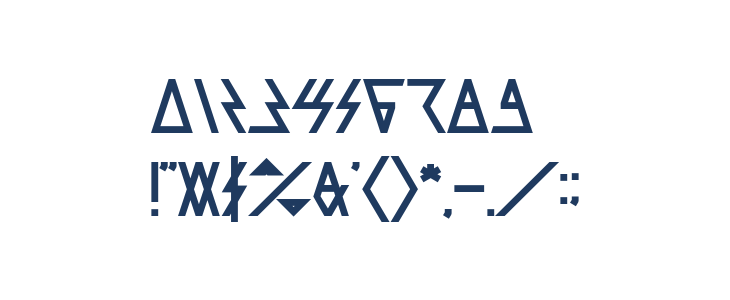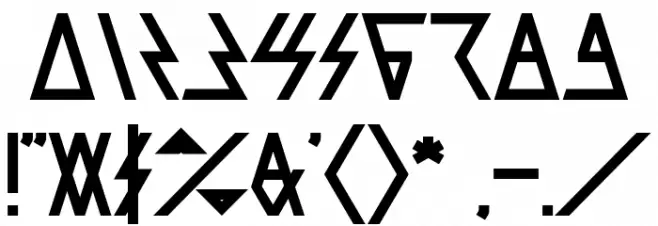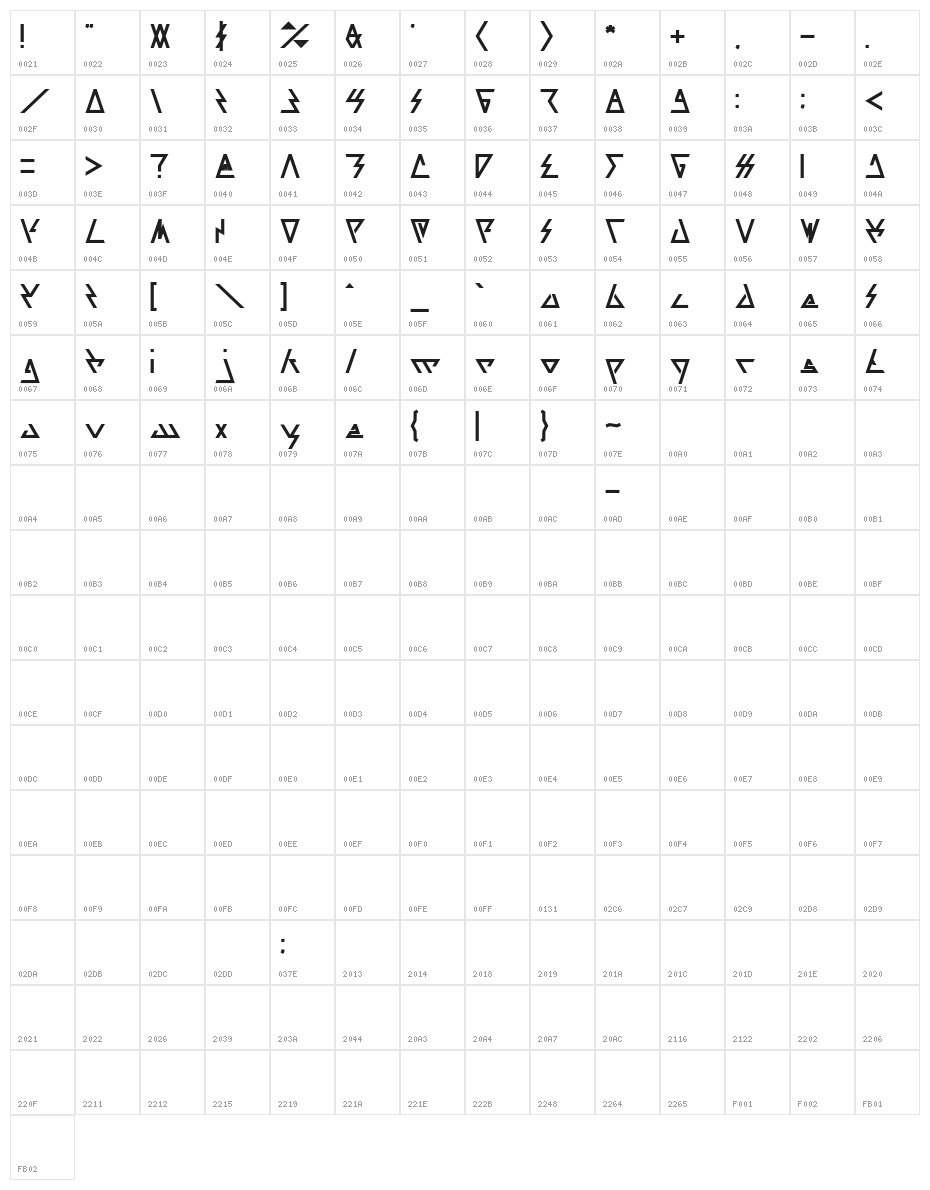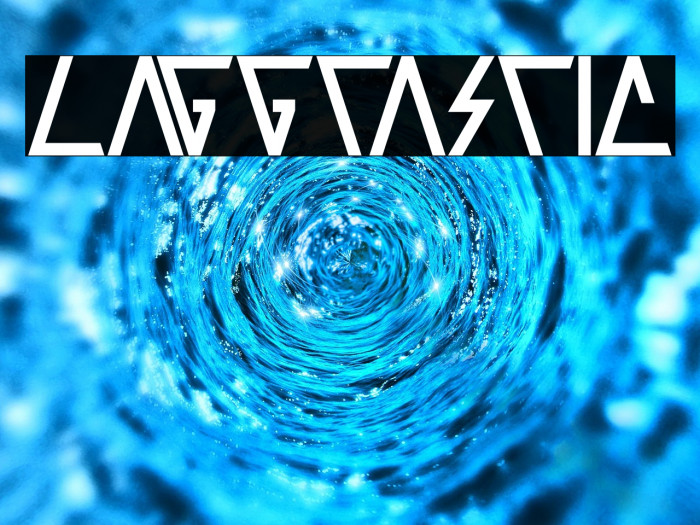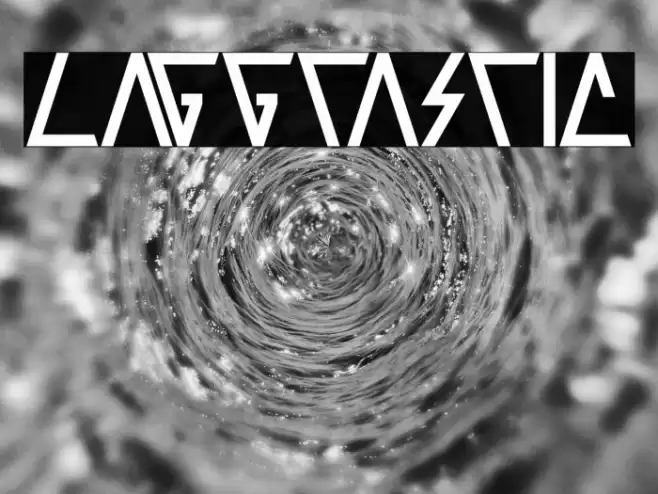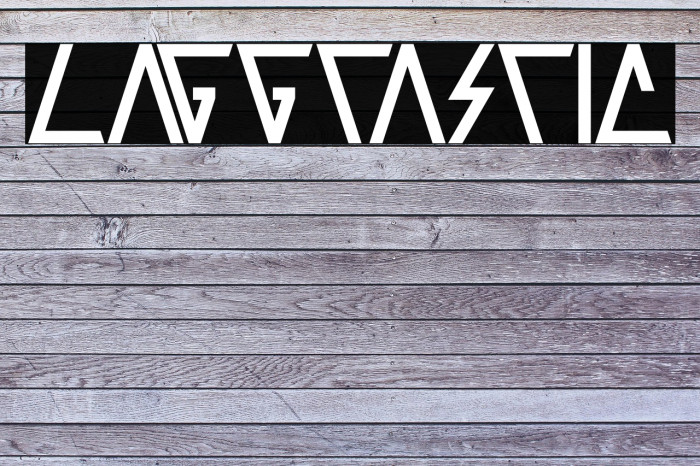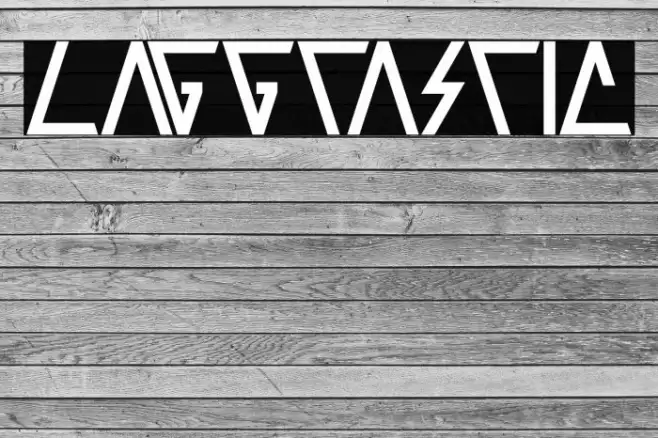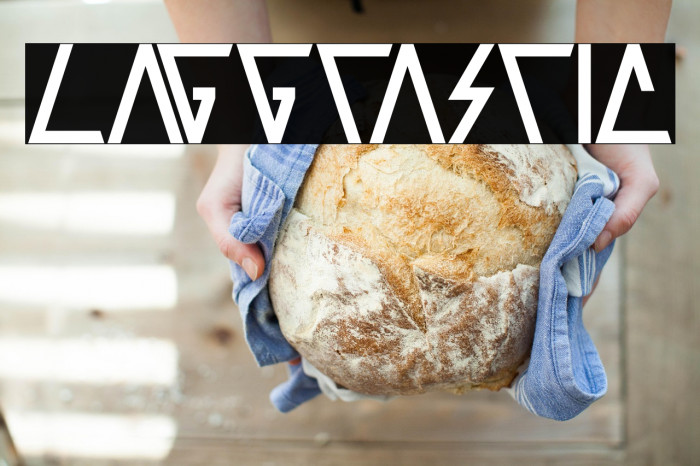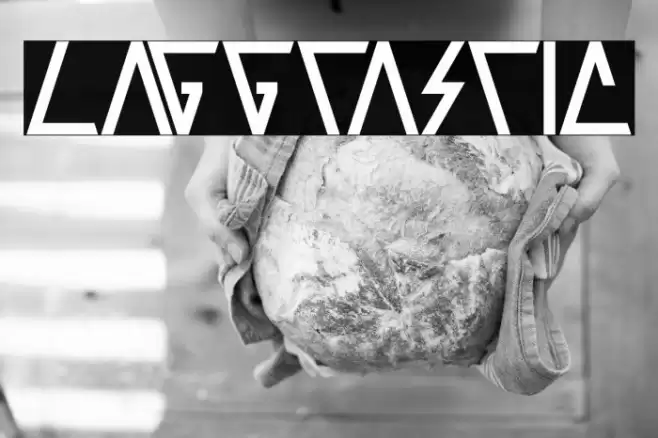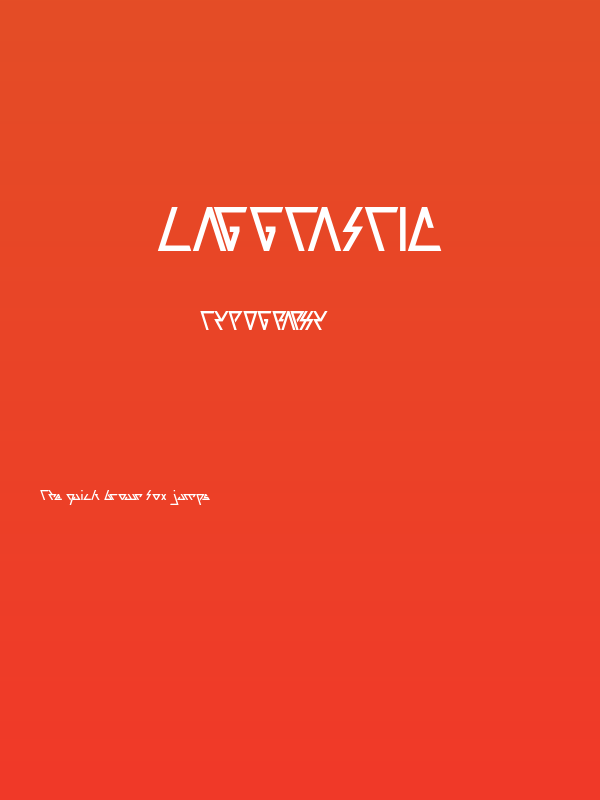
LAGGTASTIC Font
LAGGTASTIC Description
This font features a bold, geometric design with sharp angles and a futuristic aesthetic. Each character is constructed with a series of straight lines and acute angles, creating a sense of movement and energy. The uppercase and lowercase letters maintain a consistent style, emphasizing angularity and symmetry. Numbers and special characters follow the same design principles, ensuring a cohesive look across all elements. The font's unique style makes it stand out, ideal for projects that require a modern and edgy appearance.
| Overall Style | Futuristic |
| Proposed Projects | Ideal for sci-fi themed designs, video game graphics, posters, and branding that requires a modern, edgy look. |